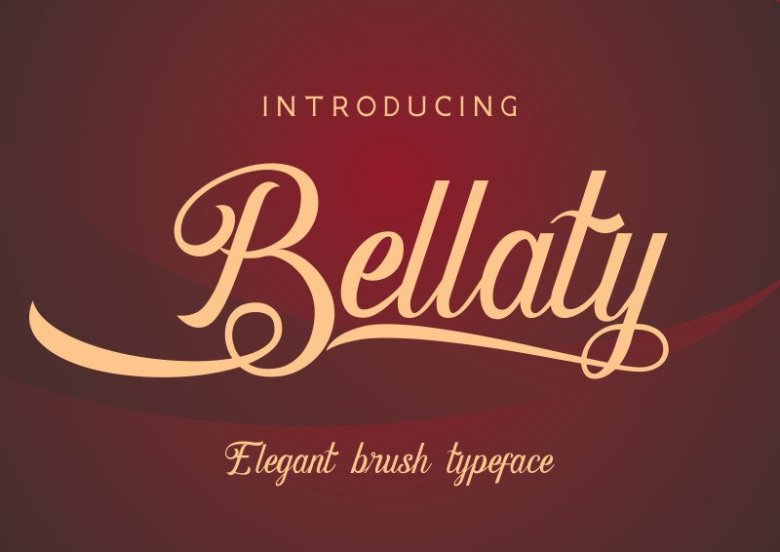
Bellaty Brush Scripts Font Free
Bellaty Brush Scripts Font is a font from SheillaType, with a unique style of brush strokes and script letters, clean with unique swash, this font can be used as logotype, card design, display text, headline, and can be used for various other design purposes.